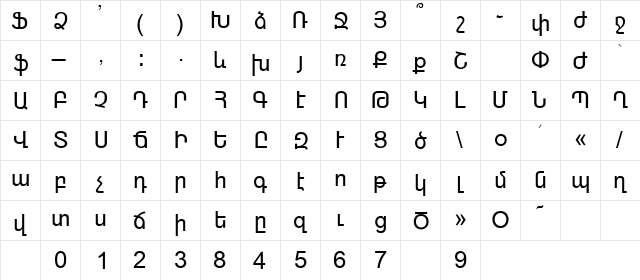
ARAGATZ Regular
Design Context for ARAGATZ Typeface
ARAGATZ takes a measured approach to typography — its balanced proportions and neutral character make it a reliable workhorse for both digital and print work.